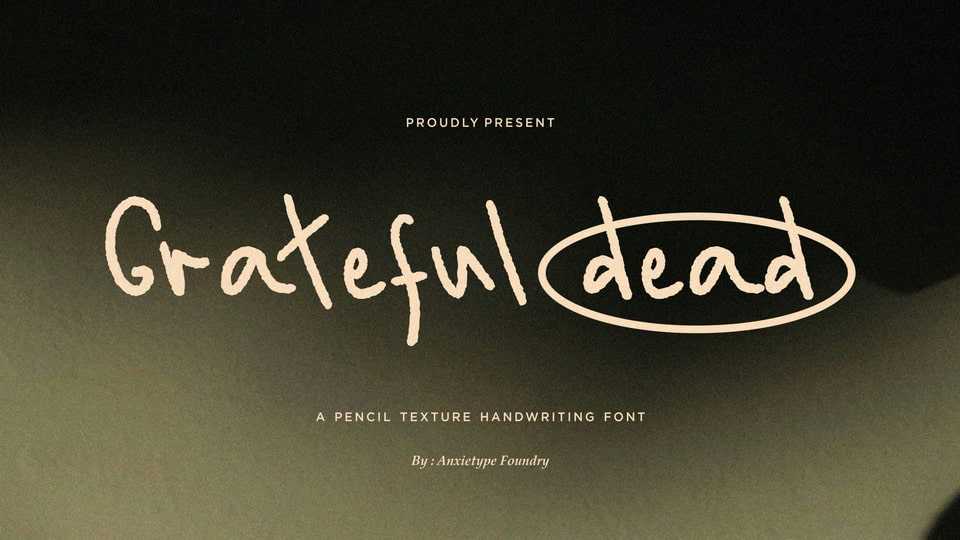
Download Grateful Dead font, an exquisitely crafted handwritten typeface that flawlessly imitates the authenticity of pencil brush strokes.
Designer: Anxietype Foundry